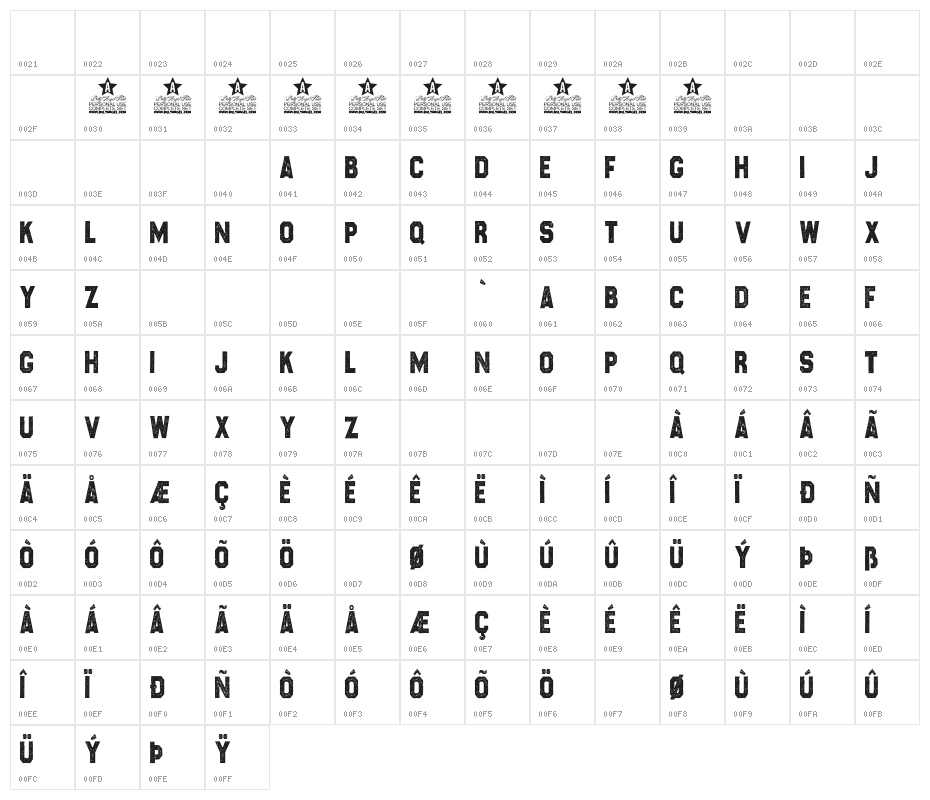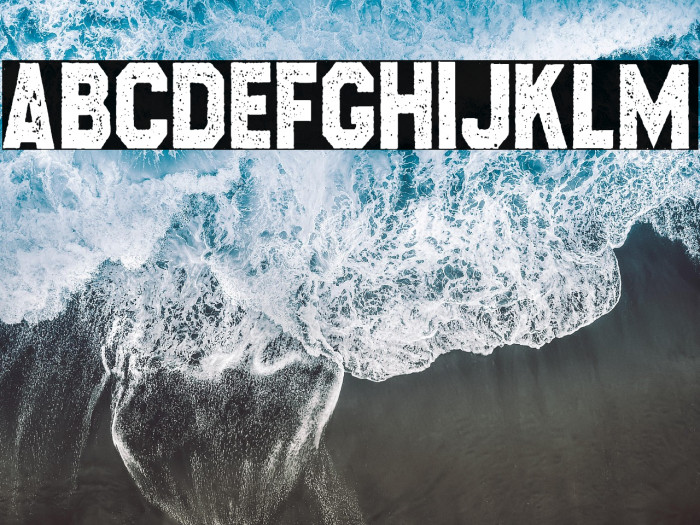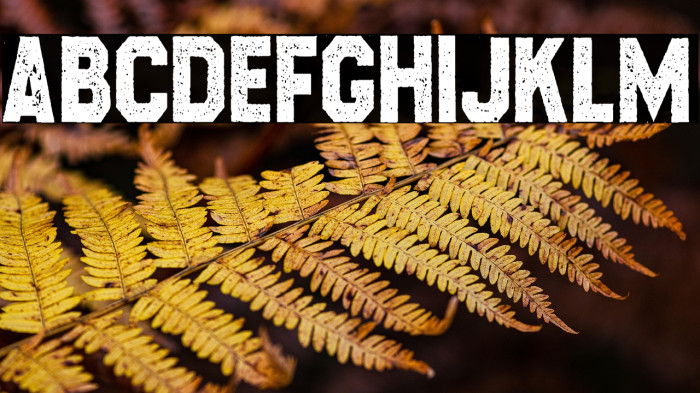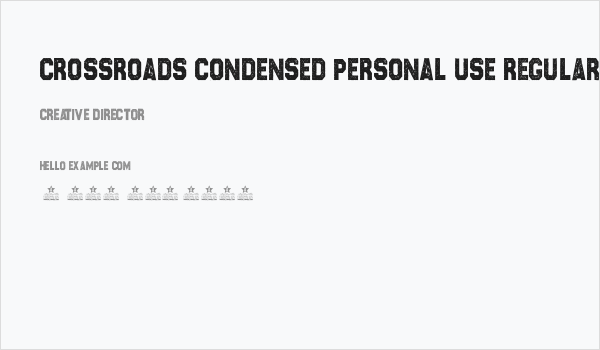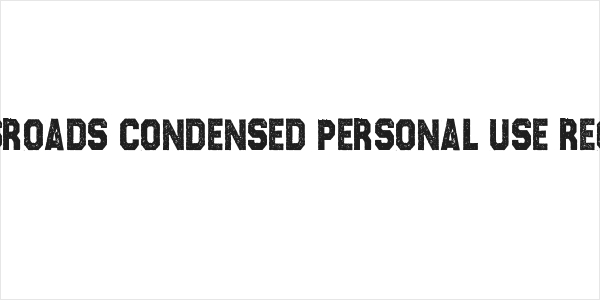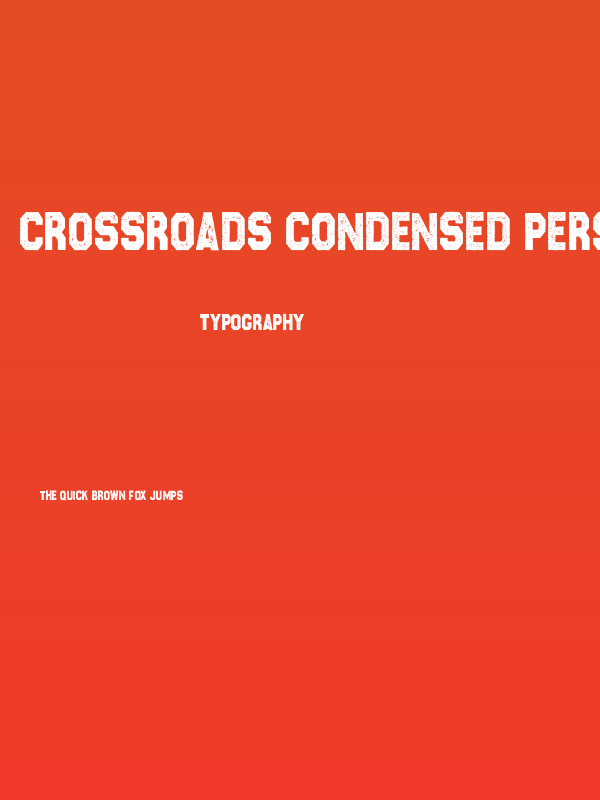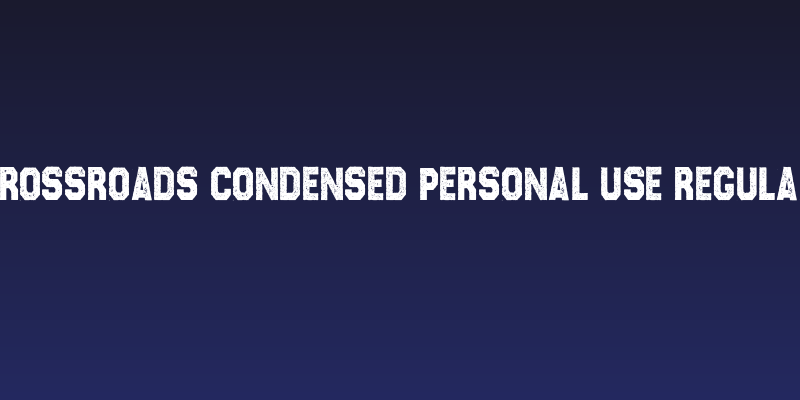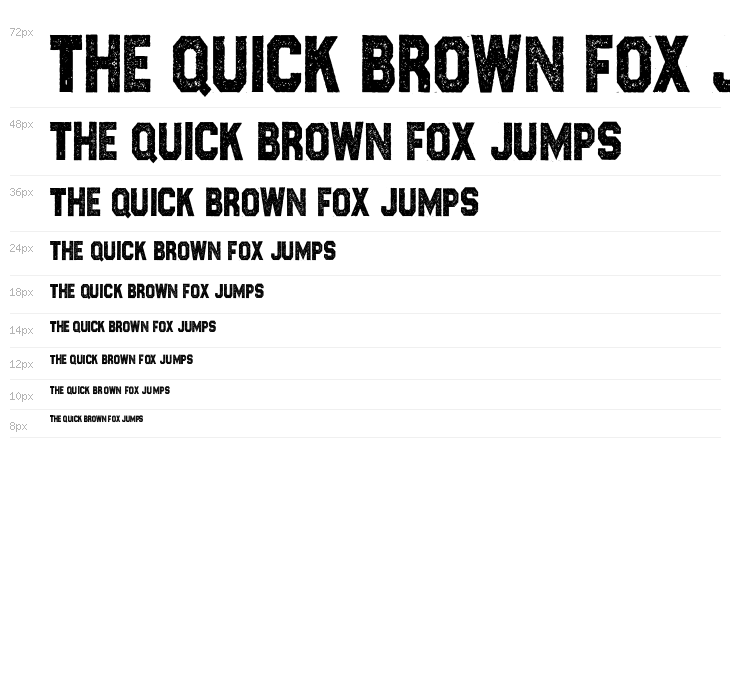
CROSSROADS CONDENSED PERSONAL USE Regular Font
CROSSROADS CONDENSED PERSONAL USE Regular Description
This font features a bold, condensed style with a distressed texture, giving it a rugged and vintage appearance. The uppercase letters are uniformly designed with sharp, angular edges, creating a strong and impactful visual presence. The distressed effect adds character, making it suitable for designs that require a worn or aged look. The font's condensed nature allows for efficient use of space, making it ideal for headlines or titles where space is limited. Its boldness ensures readability from a distance, while the textured finish adds a layer of visual interest.
Overall StyleVintage
Proposed ProjectsIdeal for vintage-themed posters, logos, apparel designs, and signage that require a bold, eye-catching typeface.